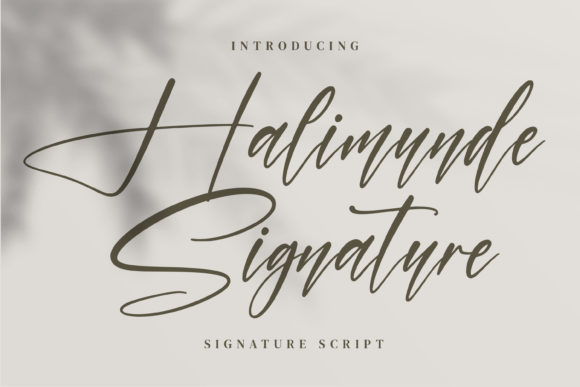
Step into the world of elegance and sophistication with Halimunde Signature Font, a timeless handwritten masterpiece crafted by Afterpaper. This exquisite script font exudes an air of charm and grace, captivating hearts with its mesmerizing curves and enchanting strokes. Embark on a creative journey like no other as Halimunde Signature transforms your digital designs into captivating works of art.
Unleash your imagination and let Halimunde Signature's enchanting allure elevate your wedding invitations, adding a touch of romance and personalized elegance. Its delicate lines and graceful swashes will elevate your stationery art, making each piece a cherished keepsake. Transform your social media presence with eye-catching posts that radiate effortless style and sophistication. Halimunde Signature's versatility knows no bounds.
With Halimunde Signature Font, you hold the key to unlocking a world of creative possibilities. Dive into the realm of branding and logo design, crafting identities that exude professionalism and timeless appeal. Engage your audience with marketing materials that leave a lasting impression, capturing their attention with Halimunde Signature's captivating essence. Let your website radiate warmth and personality, inviting visitors to delve into an immersive experience shaped by this stunning font.
Embrace the beauty of handwritten elegance and make Halimunde Signature Font your creative companion. Its remarkable charm will effortlessly elevate your designs, leaving an unforgettable mark on the hearts of your audience. Immerse yourself in a world of inspiration and artistry, where every letter dances with grace and emotion.